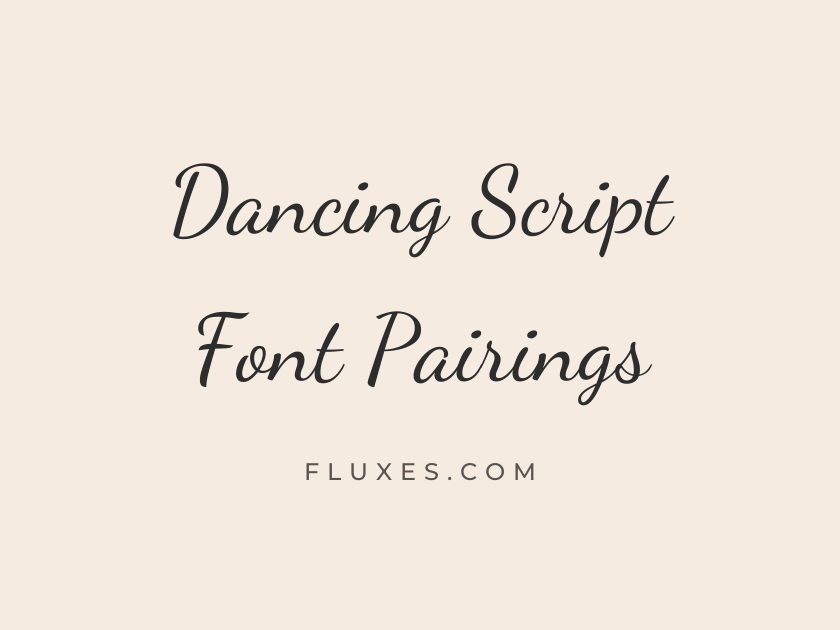
11 Best Font Pairings for Dancing Script
Dancing Script is a lively, brush-inspired script with generous loops and a forward-leaning rhythm that reads as warm and celebratory rather than formal. Because it carries so much personality on its own, it tends to work best as an accent, a signature line, or a headline paired with a body or secondary font that stays understated and lets the script breathe. Below are combinations built around that idea, useful for wedding stationery, packaging, blogs, and any project that wants a handwritten touch balanced by a stable, legible partner.
1. Dancing Script + Lato
Clean, humanist letterforms give the flourish of the script room to shine.
Lato’s low-contrast, rounded structure is essentially neutral, so it never competes with the swash and slant of Dancing Script. This pairing suits invitations and lifestyle blogs where warmth needs a dependable, easy-reading partner underneath.
2. Playfair Display + Dancing Script
A touch of handwriting softens the sharpness of a high-contrast serif.
Here the roles flip: Playfair Display’s dramatic thick-thin contrast carries the headline, while Dancing Script appears smaller as a signature or subheading accent. The result feels like a formal invitation with a personal note tucked inside.
3. Dancing Script + Montserrat
Geometric sans letters keep the layout grounded and easy to scan.
Montserrat’s even geometry and confident spacing act as a calm counterweight to the script’s motion. This is a reliable choice for boutique branding, greeting cards, and packaging that wants a friendly but organized feel.
4. Dancing Script + Karla
A quiet grotesque keeps paragraphs tidy beneath an expressive header.
Karla’s restrained, slightly quirky sans has enough character to feel considered without ever pulling focus from a script headline. It works well in blog templates and stationery where body copy needs to stay comfortable at length.
5. Abril Fatface + Dancing Script
A flowing script adds a softer, more personal accent line beneath a bold display.
Abril Fatface’s heavy, high-contrast strokes create dramatic scale, and a smaller line of Dancing Script underneath softens that weight with a human touch. This combination fits fashion branding, invitations, and posters that want both punch and warmth.
6. Dancing Script + Source Sans 3
A workhorse sans keeps long passages of text comfortable and unobtrusive.
Source Sans 3 was built for interfaces and long-form reading, so it settles into a supporting role without friction. Pair it with Dancing Script for blog headers or product pages where the script draws the eye and the sans carries the content.
7. Dancing Script + EB Garamond
An old-style serif brings a literary calm that matches the script's traditional roots.
Both fonts share a sense of history, the script echoing pen calligraphy and EB Garamond echoing metal type, so the pairing feels cohesive rather than mismatched. It suits wedding suites, book design, and any project leaning toward classic romance.
8. Oswald + Dancing Script
A script accent line adds warmth beneath a tall, condensed display headline.
Oswald’s narrow, upright forms contrast sharply with the script’s curves, and that tension keeps the pairing from feeling too sweet. Use Oswald for structure and Dancing Script sparingly, as a subtitle or tagline, in editorial or event branding.
9. Dancing Script + Nunito
Soft, rounded terminals echo the friendliness of the script without imitating it.
Nunito’s gentle curves share a mood with Dancing Script, both approachable and unpretentious, which makes the transition between headline and body feel natural. This pairing works nicely for craft businesses, baby announcements, and playful packaging.
10. Dancing Script + PT Serif
A sturdy transitional serif grounds the page with quiet reliability.
PT Serif’s moderate contrast and generous x-height make it comfortable at small sizes, balancing out the flourish of the script above it. It is a solid choice for menus, certificates, and printed keepsakes that need both charm and clarity.
11. Raleway + Dancing Script
A handwritten flourish adds personality to an otherwise minimal sans layout.
Raleway’s thin, elegant strokes create a light, airy headline, and a touch of Dancing Script below adds warmth without adding visual weight. This combination suits minimalist branding that still wants a personal, handmade signal.
Tips for pairing Dancing Script
Keep Dancing Script for short phrases: titles, signatures, or accent lines, since scripts lose clarity in long paragraphs.
Choose a body font with a neutral or slightly warm personality so it supports rather than competes with the script’s movement.
Watch scale and spacing; scripts often need more letter spacing at small sizes and more line height when set above or below body text.